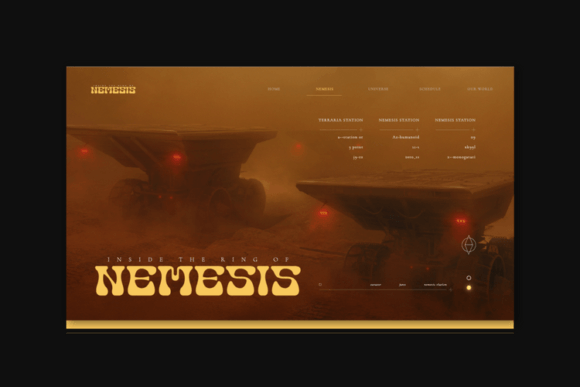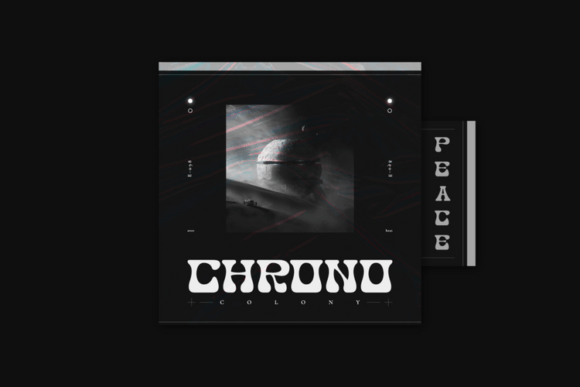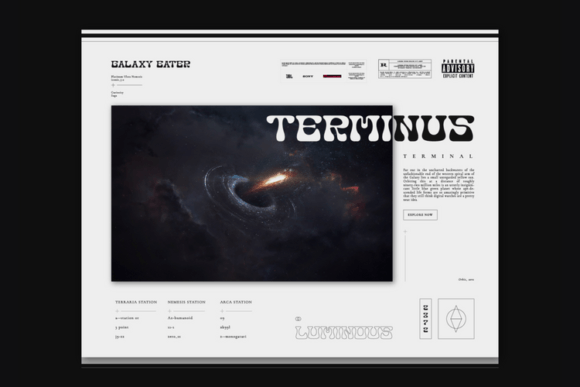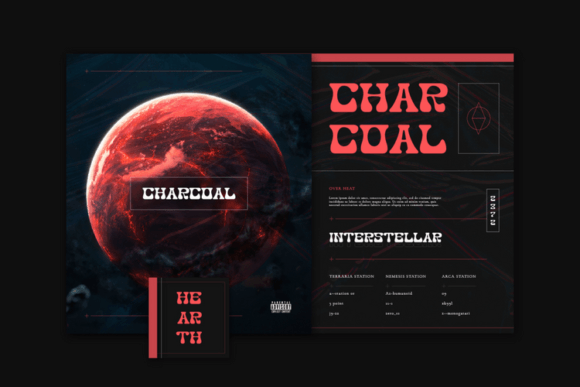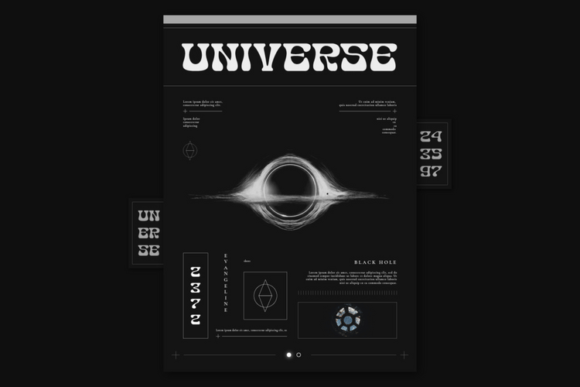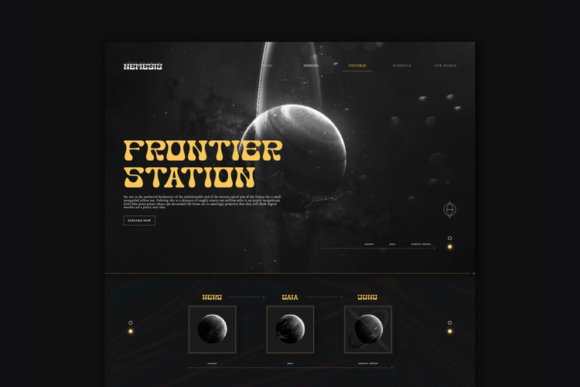
Cosmos Font: Elevate Your Creations with a Fun and Stylish Display Font
Are you looking for a font that can add a touch of excitement and style to your designs? Look no further than the Cosmos Font. This trendy and stylish display font is perfect for designers and crafters who want to take their creations to the next level. In this article, we’ll explore the features and benefits of the Cosmos Font, and show you how it can elevate your designs.
What is Cosmos Font?
Cosmos Font is a fun and incredibly interesting display font that is designed to make a statement. Its unique and stylish design makes it perfect for a wide range of creative projects, from branding and advertising to packaging and social media graphics. The font is characterized by its bold and eye-catching letters, which are sure to grab the attention of your audience.
Features of Cosmos Font
So, what makes Cosmos Font so special? Here are just a few of its key features:
- Unique and Stylish Design: Cosmos Font has a one-of-a-kind design that is sure to make your creations stand out.
- Bold and Eye-Catching Letters: The font’s bold letters are perfect for making a statement and grabbing the attention of your audience.
- Trendy and Modern: Cosmos Font is a trendy and modern font that is perfect for designers and crafters who want to stay ahead of the curve.
- Highly Versatile: The font is highly versatile and can be used for a wide range of creative projects.
Benefits of Using Cosmos Font
So, why should you use Cosmos Font in your designs? Here are just a few of the benefits:
- Adds a Touch of Excitement: Cosmos Font adds a touch of excitement and style to your designs, making them more engaging and attention-grabbing.
- Elevates Your Creations: The font’s unique and stylish design elevates your creations, making them look more professional and polished.
- Perfect for Branding and Advertising: Cosmos Font is perfect for branding and advertising projects, where you want to make a bold and eye-catching statement.
- Easy to Use: The font is easy to use and can be easily integrated into your designs.
How to Use Cosmos Font
Using Cosmos Font in your designs is easy. Here are a few tips:
- Use it as a Display Font: Cosmos Font is perfect for use as a display font, where you want to make a bold and eye-catching statement.
- Pair it with Other Fonts: The font can be paired with other fonts to create a unique and stylish design.
- Experiment with Different Colors: Cosmos Font looks great in a variety of colors, so don’t be afraid to experiment and find the perfect color for your design.
Who Can Use Cosmos Font?
Cosmos Font is perfect for a wide range of designers and crafters, including:
- Graphic Designers: Graphic designers can use Cosmos Font in a variety of projects, from branding and advertising to packaging and social media graphics.
- Crafters: Crafters can use Cosmos Font in a variety of projects, from handmade cards and invitations to DIY signs and decorations.
- Small Business Owners: Small business owners can use Cosmos Font to create eye-catching branding and advertising materials.
In conclusion, Cosmos Font is a fun and incredibly interesting display font that is perfect for designers and crafters who want to elevate their creations. Its unique and stylish design, bold and eye-catching letters, and highly versatile nature make it a great addition to any design project. Whether you’re a graphic designer, crafter, or small business owner, Cosmos Font is a great choice for anyone looking to add a touch of excitement and style to their designs.